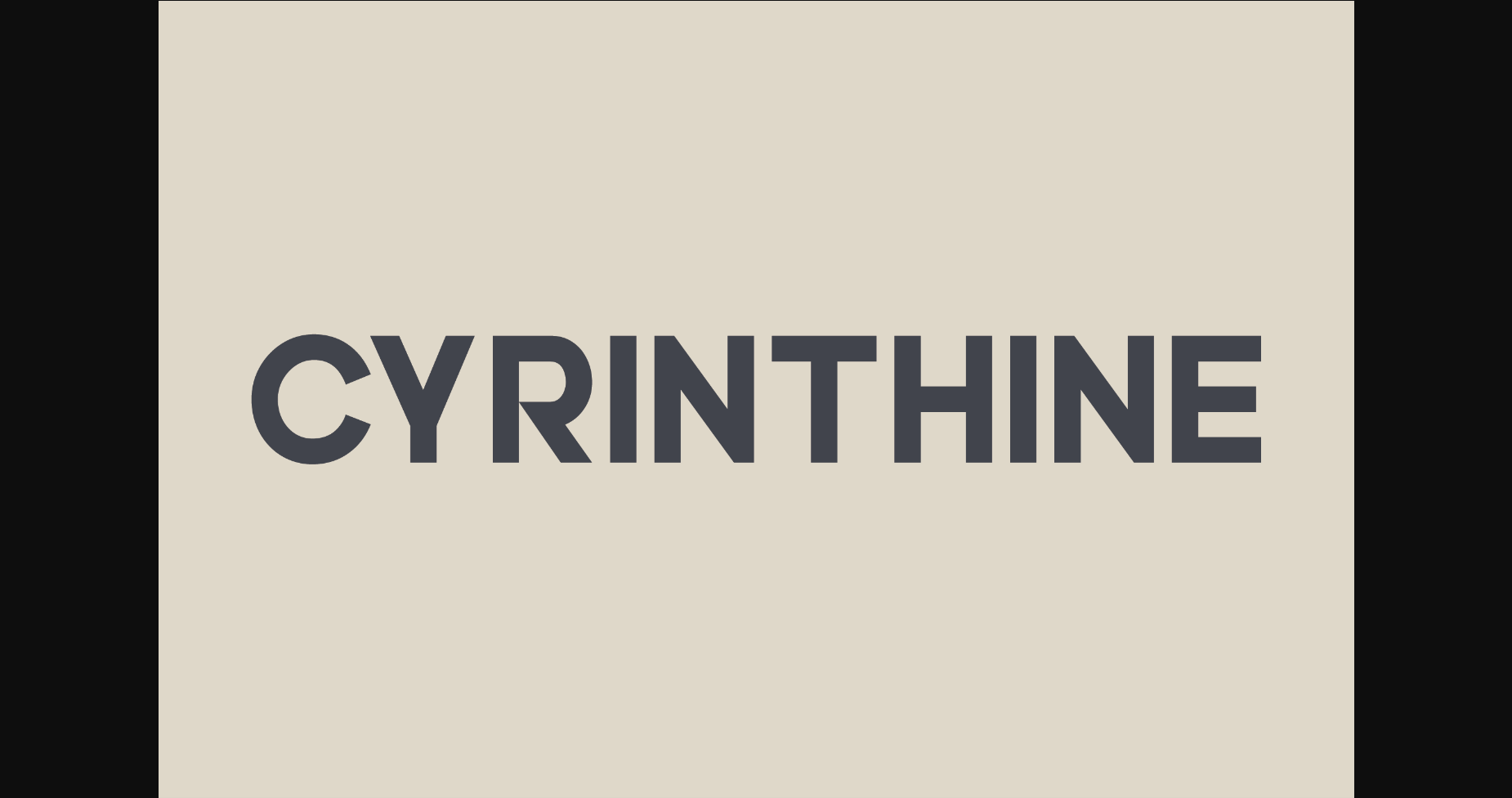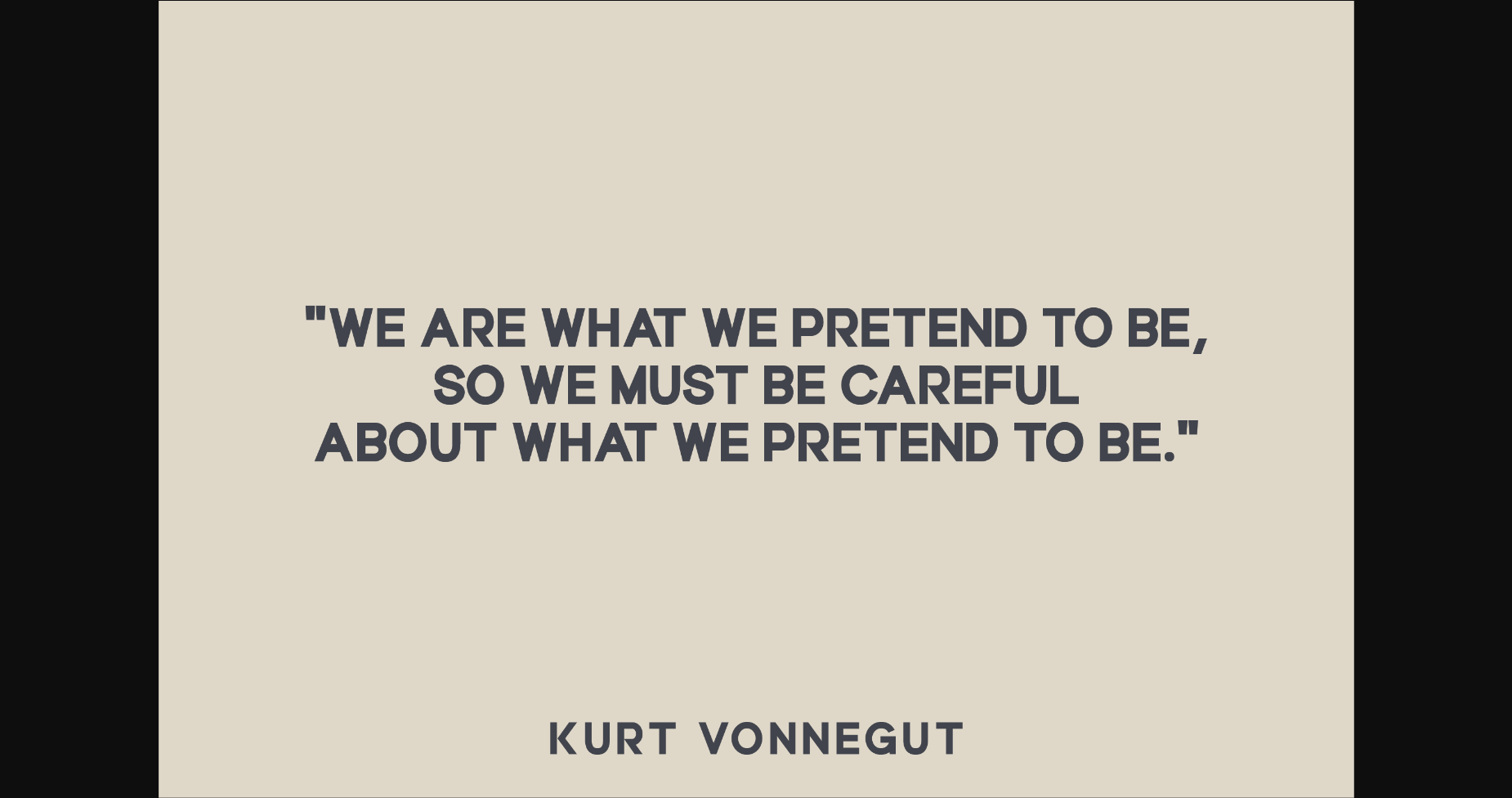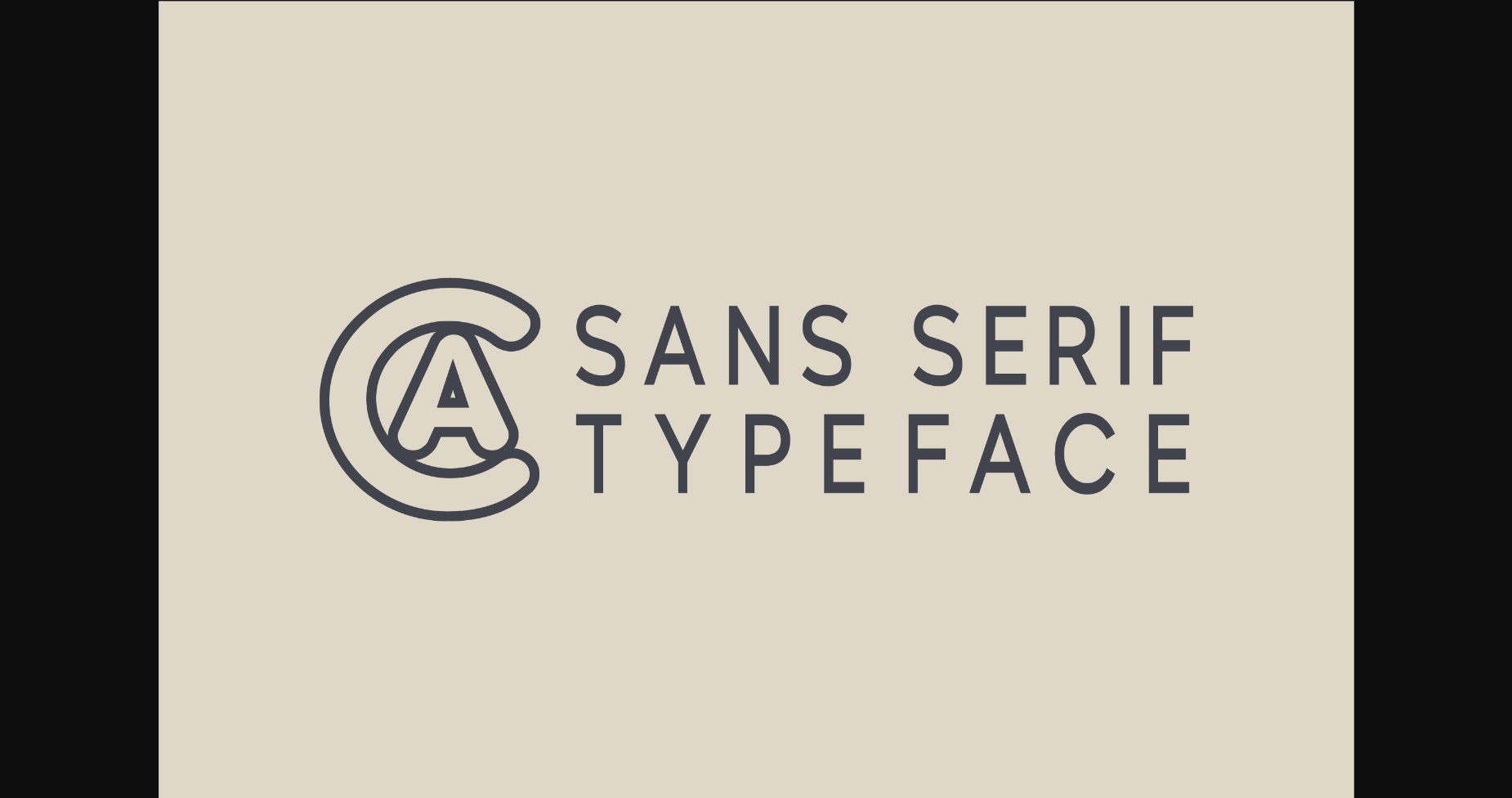
About Cyrinthine Font
Cyrinthine is a versatile, modern, and classy sans serif font perfect for logos, weddings, invitations, quotes, advertisements, print, magazines, and more. Add it to your most creative ideas, and notice how it makes them come alive!